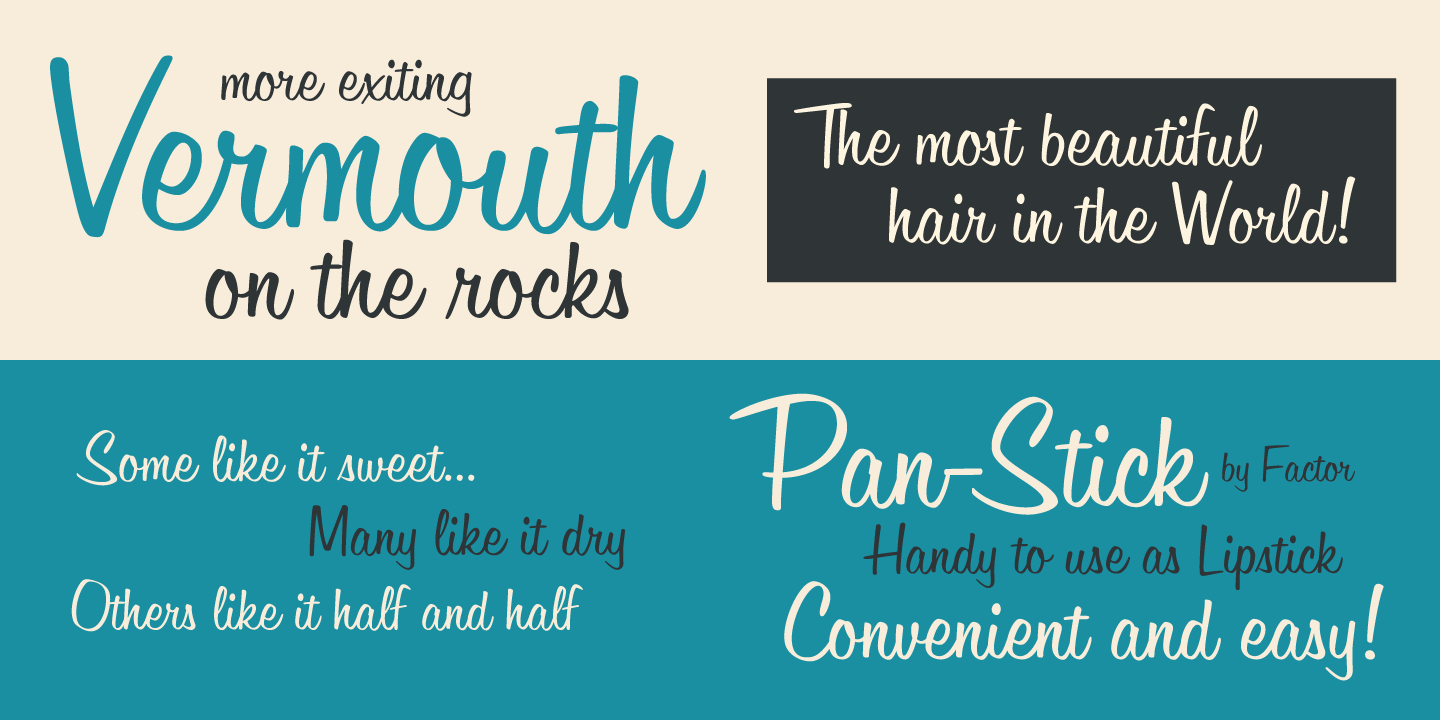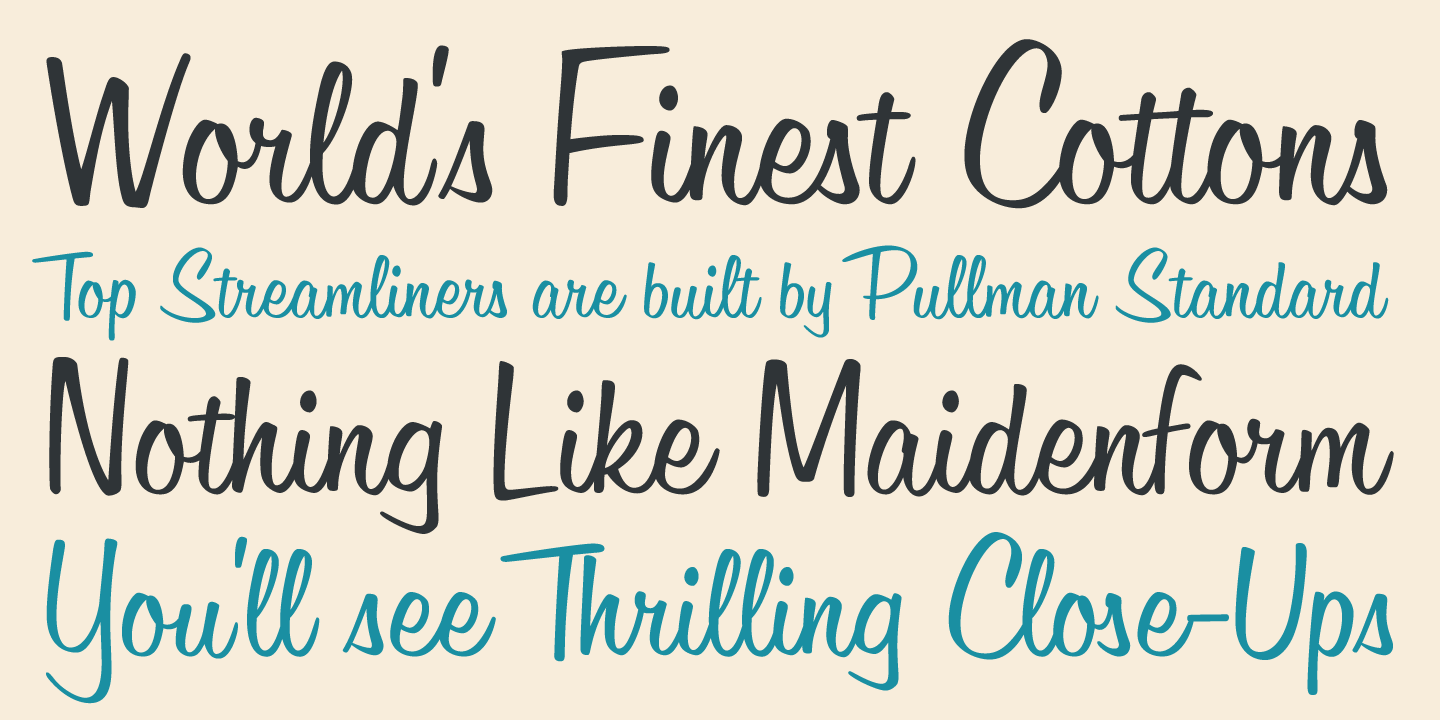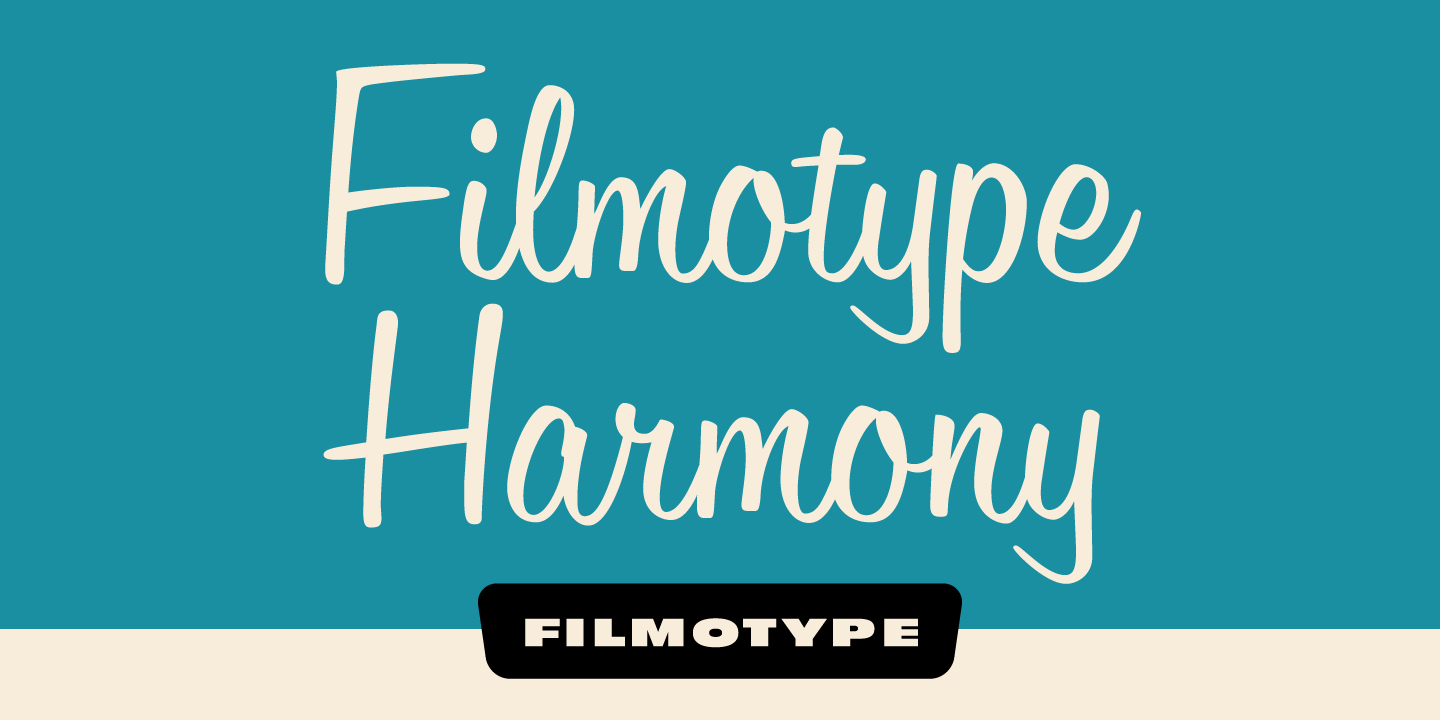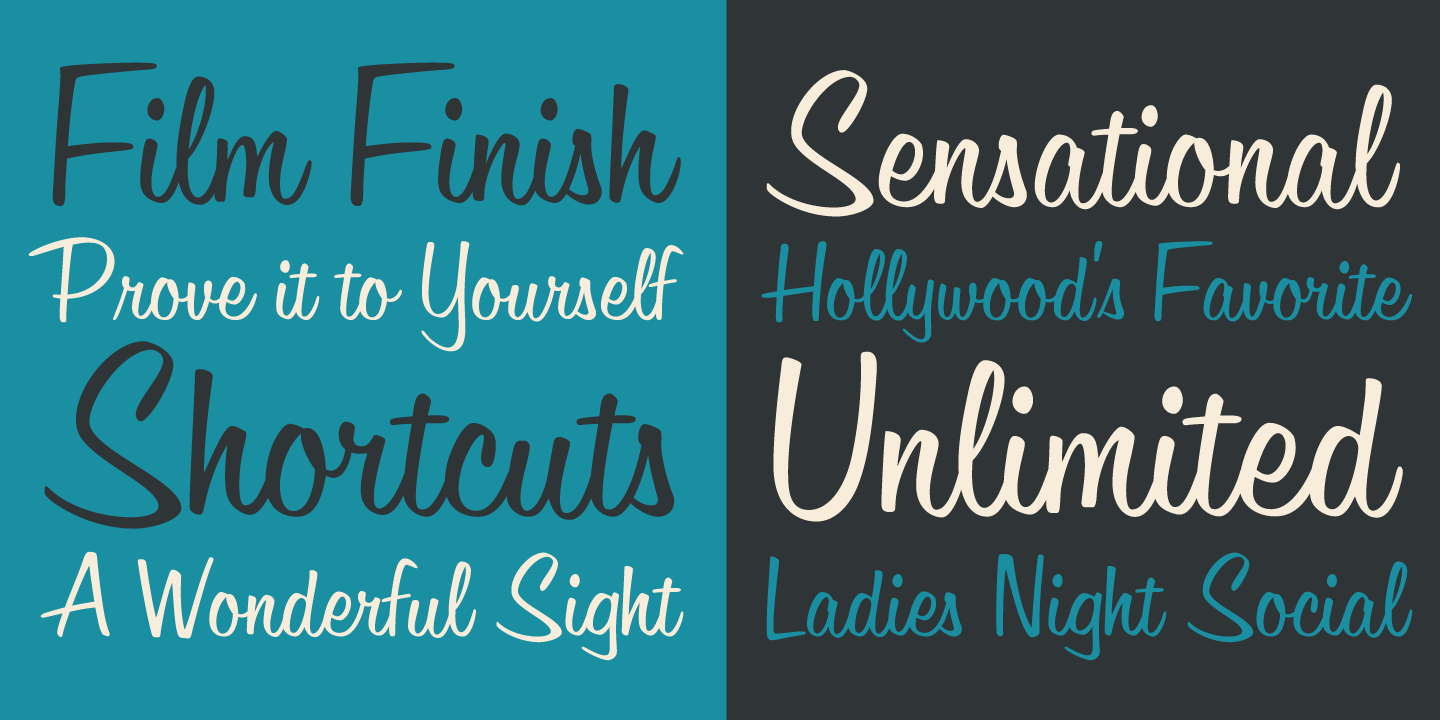
Filmotype Harmony
About Filmotype Harmony
Filmotype Harmony was the first connecting handwritten script face released by Filmotype in 1950 originally designed by Ray Baker. Ray designed Harmony as a proof of concept that the Filmotype machine could be used to typeset convincing connecting scripts…